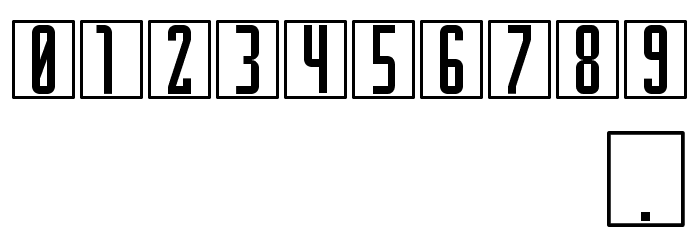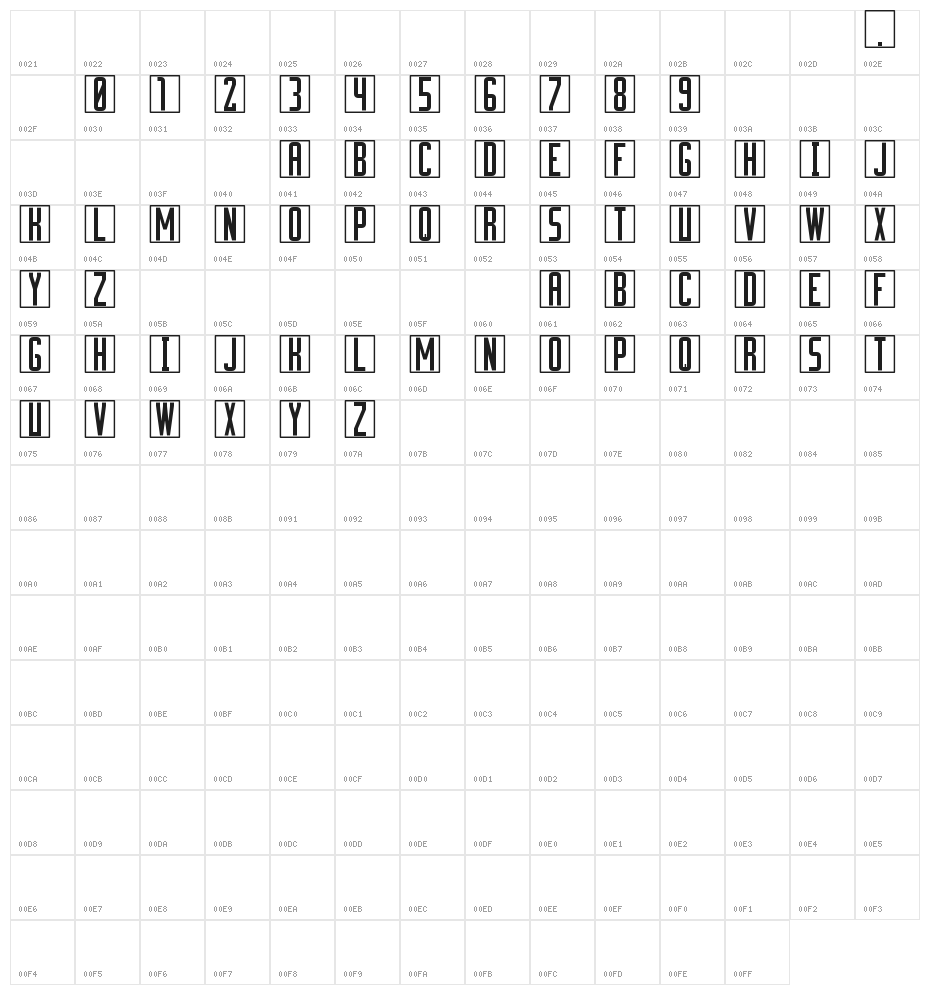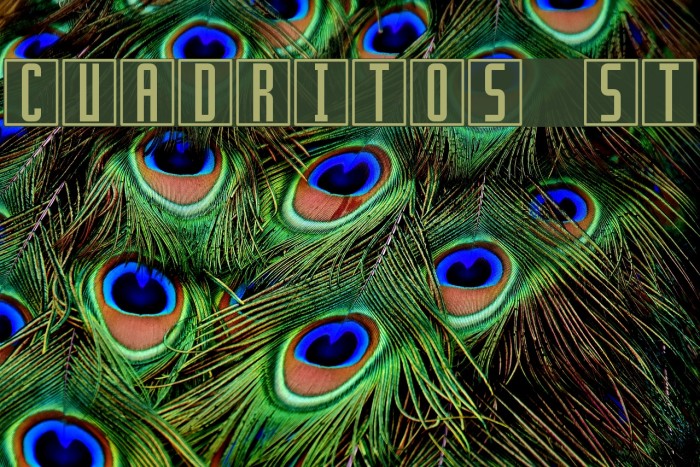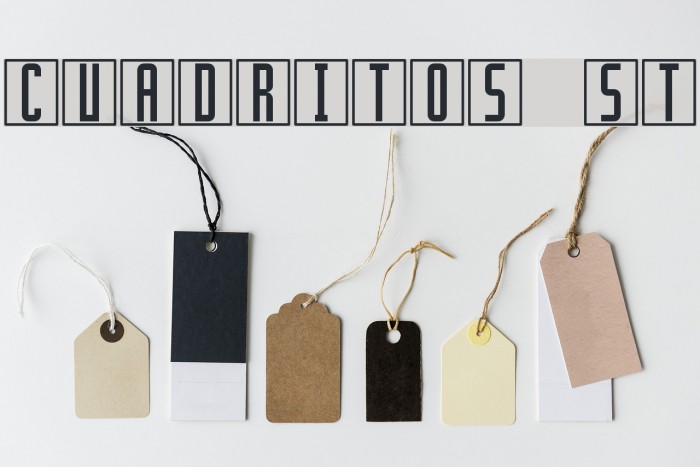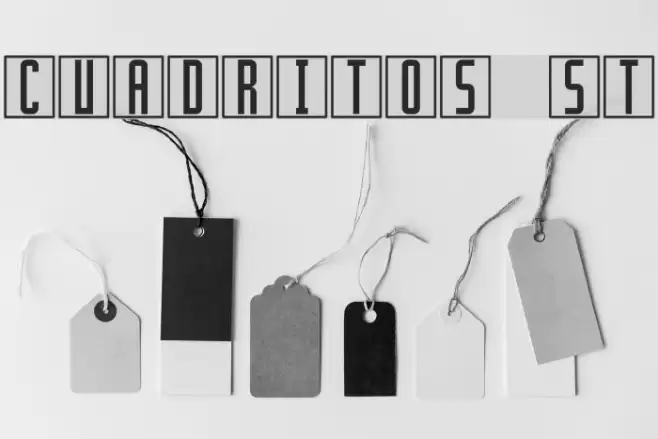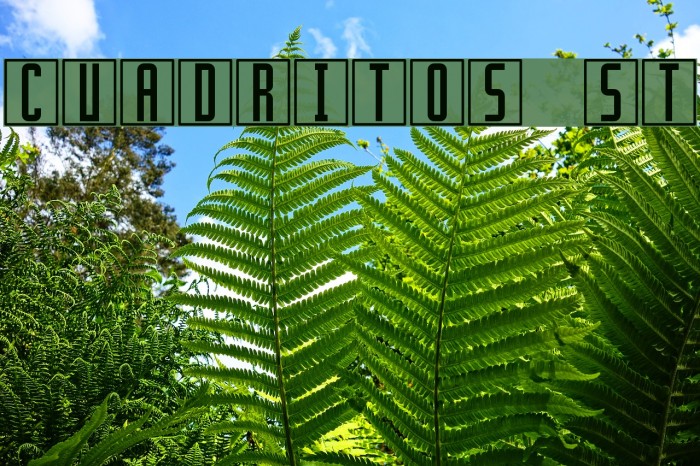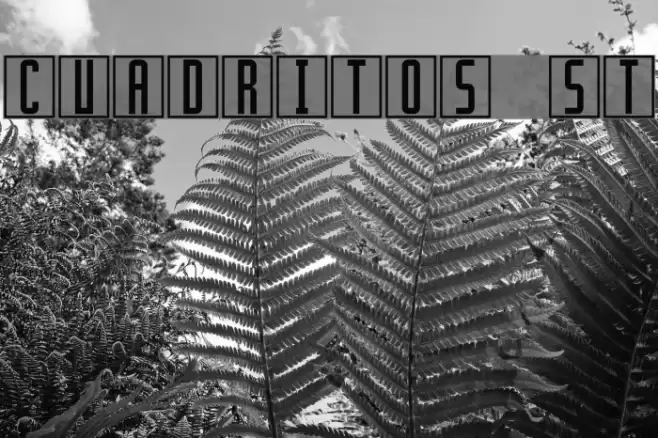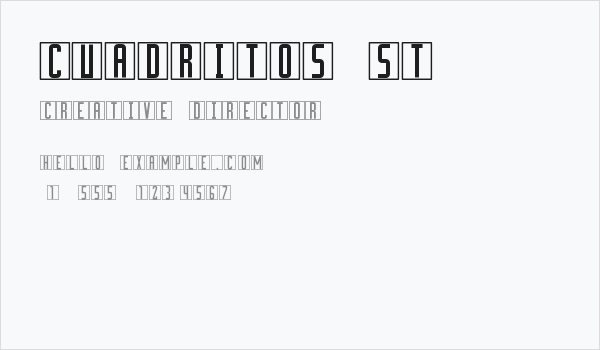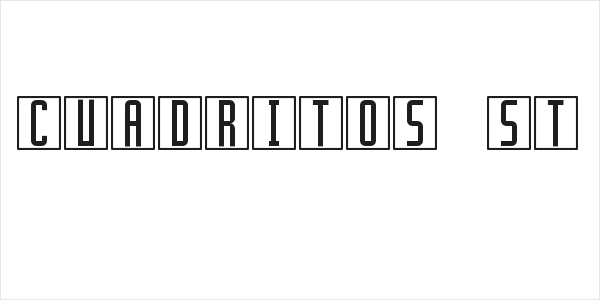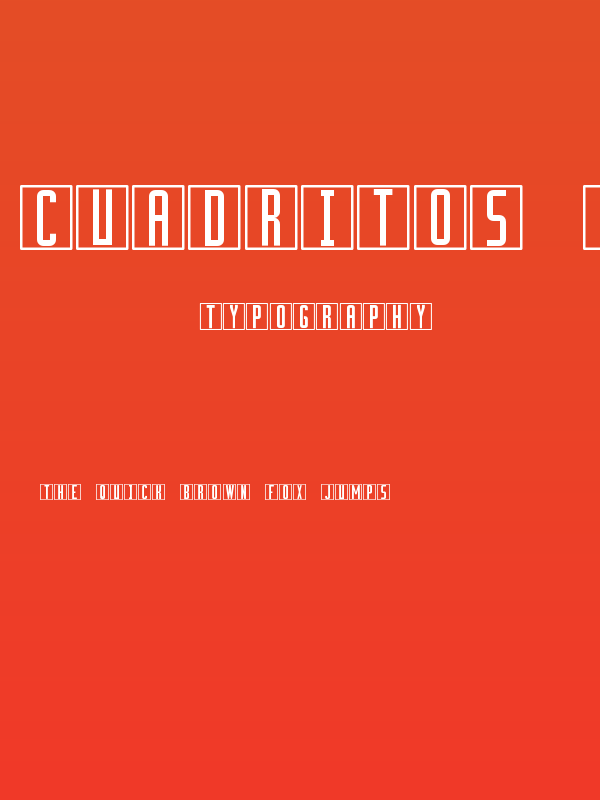
Cuadritos St Font
Cuadritos St Description
This font features a unique boxed design where each character is enclosed within a square outline, creating a distinct and structured appearance. The letters are bold and geometric, with a strong emphasis on vertical and horizontal lines. The uniformity of the boxes gives the font a grid-like, modular feel, making it stand out in any design. The characters are evenly spaced within their boxes, ensuring a consistent look across all letters and numbers. This style is reminiscent of digital or pixelated fonts, yet it maintains a modern and clean aesthetic.
| Proposed Projects | Ideal for digital displays, video game interfaces, posters, and modern branding projects. |